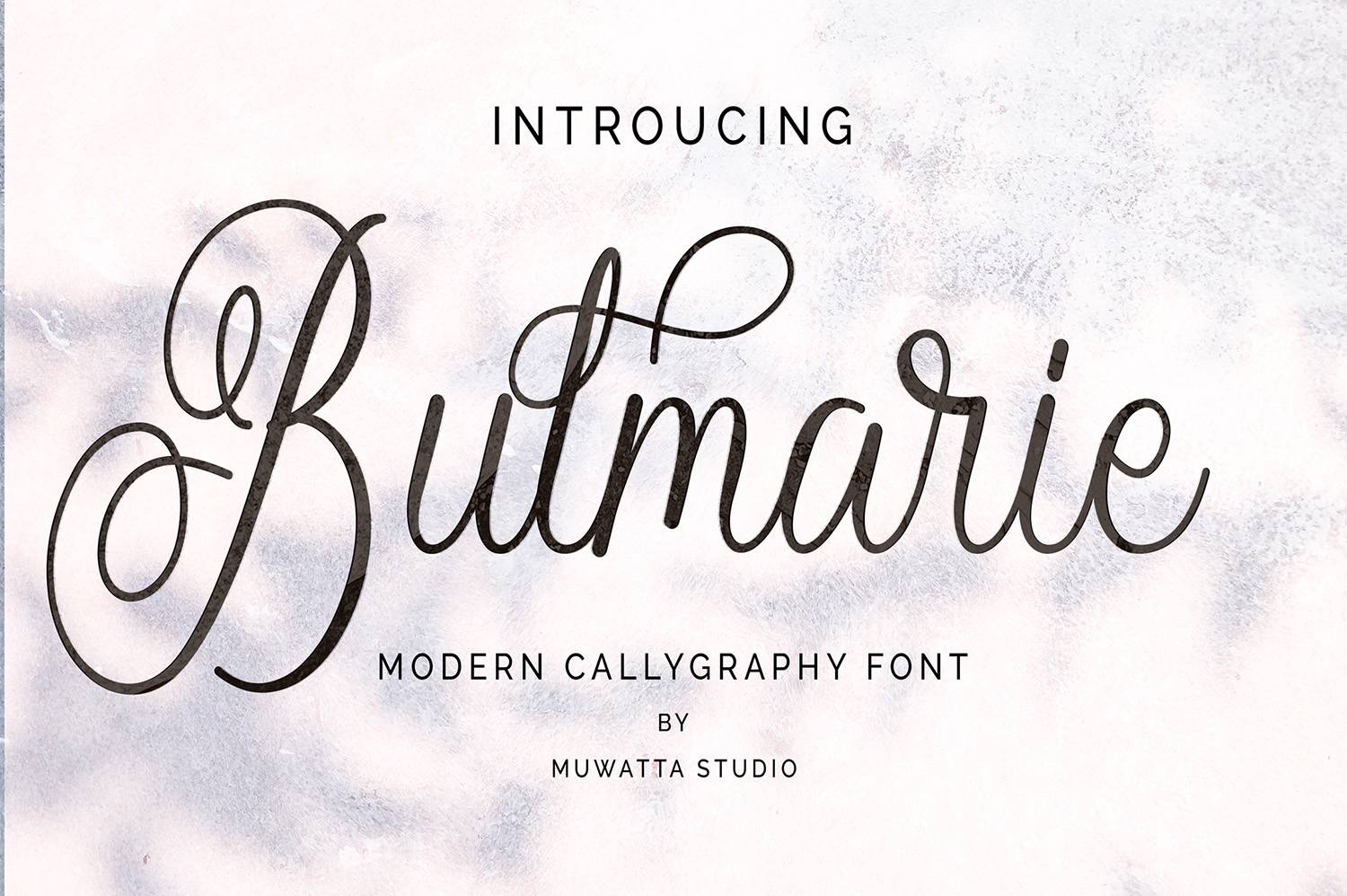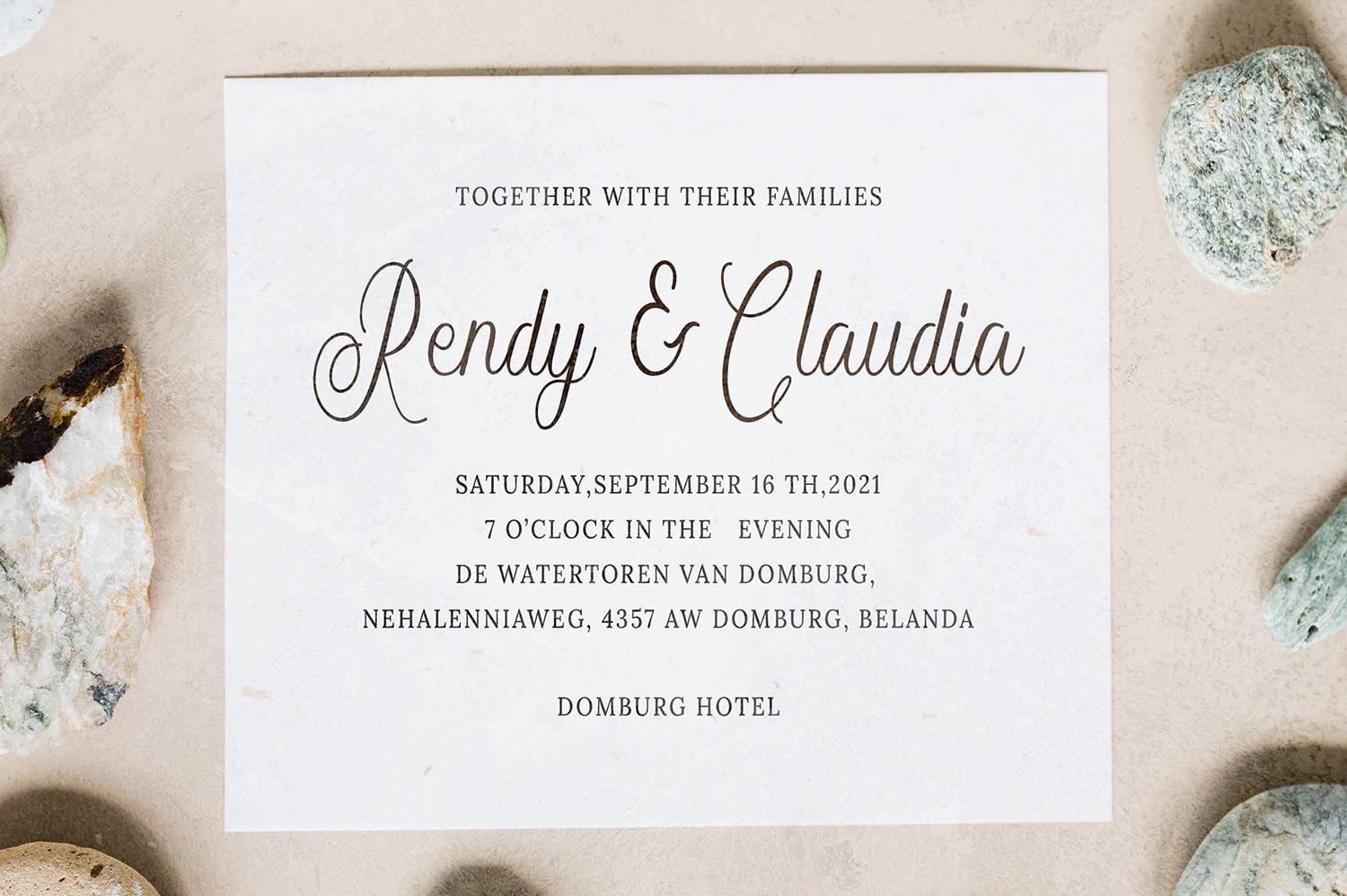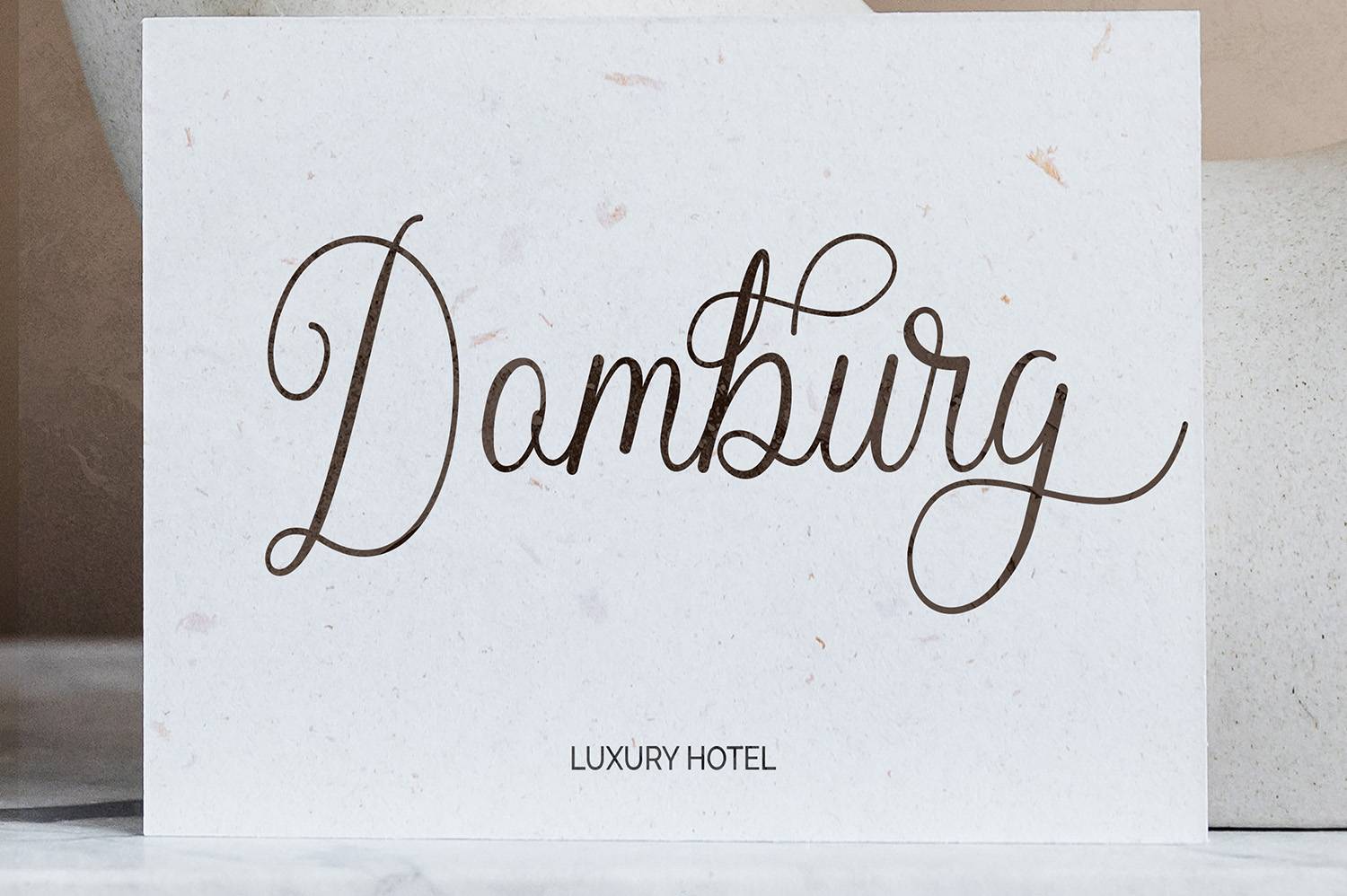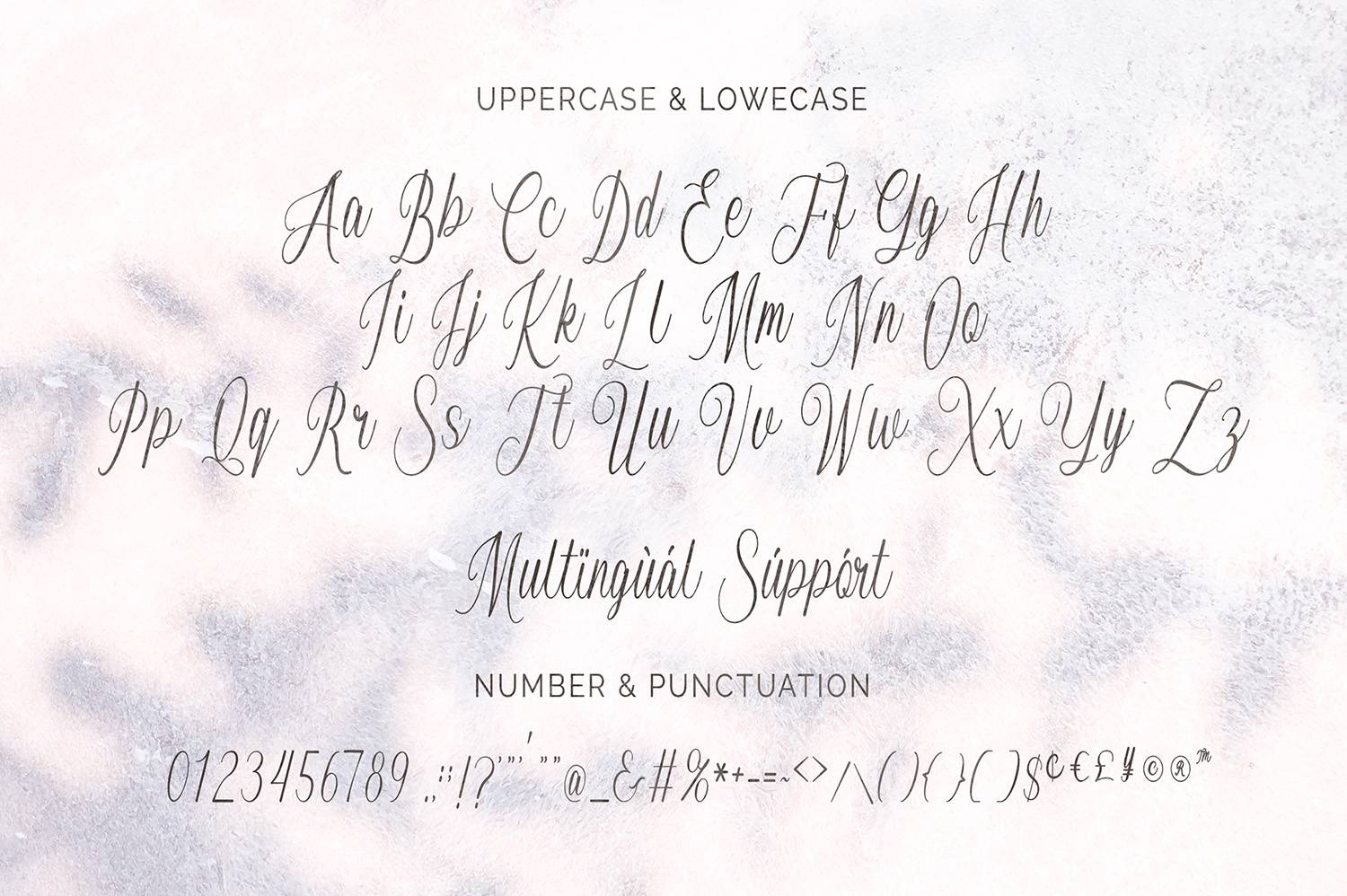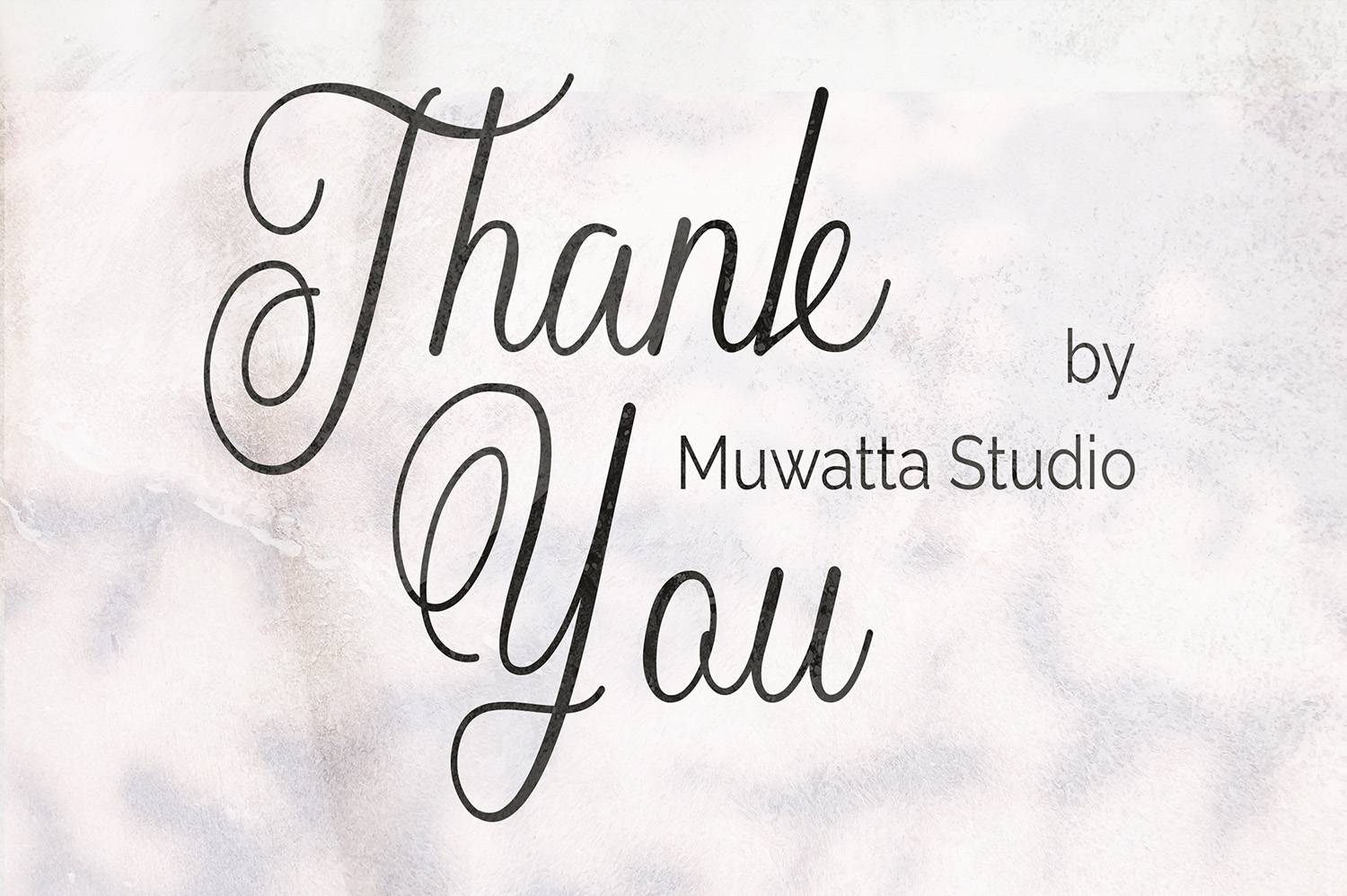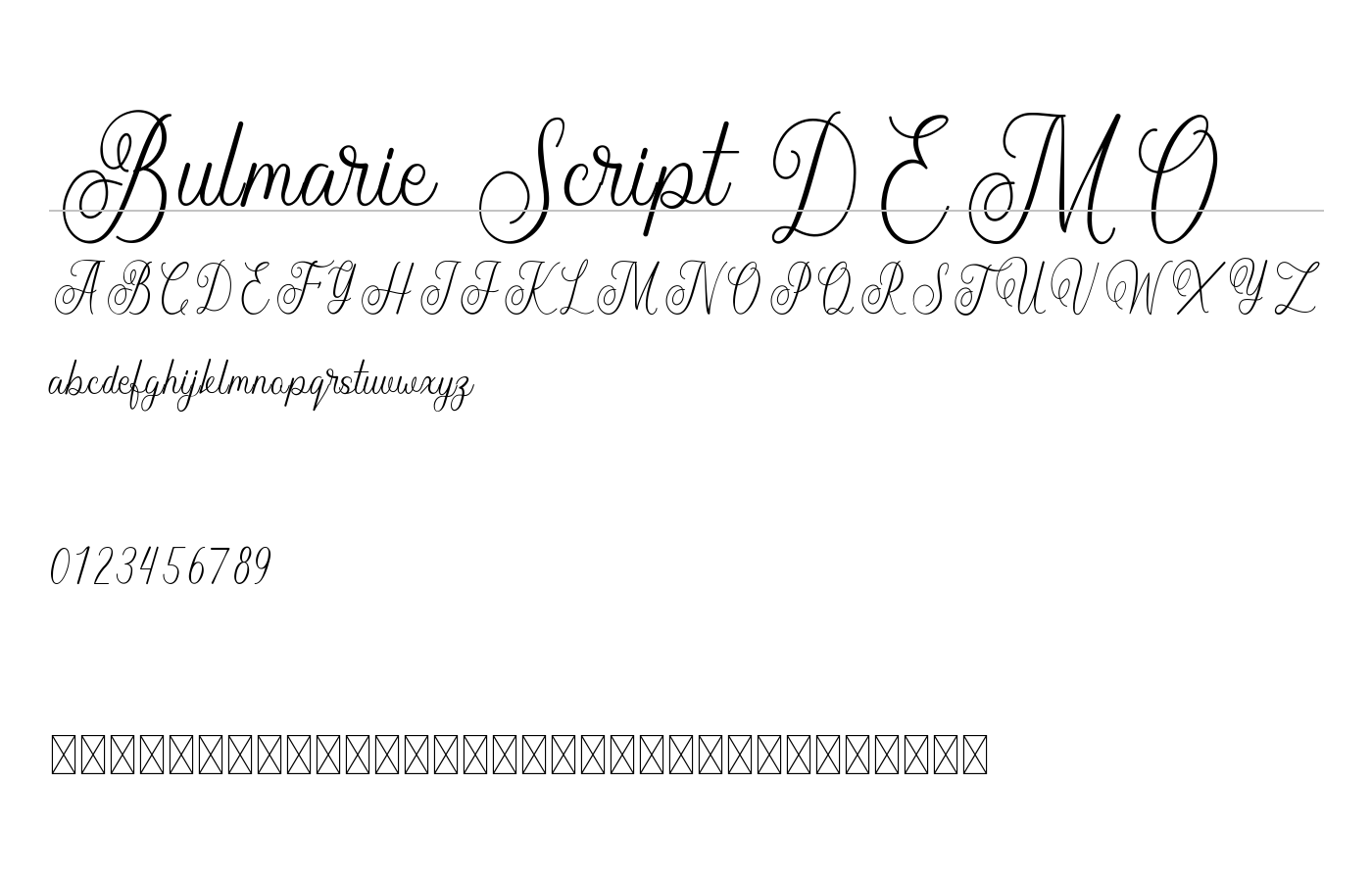
Bulmarie is a delicate, elegant script font with fine, flowing strokes that give it a graceful and sophisticated feel. Its tall, narrow letterforms and ornamental swashes make it perfect for luxury branding, invitations, and feminine-focused designs where a refined and stylish touch is desired. This font works best in headlines and decorative accents, adding a sense of charm and elegance to any project.
Bulmarie Font